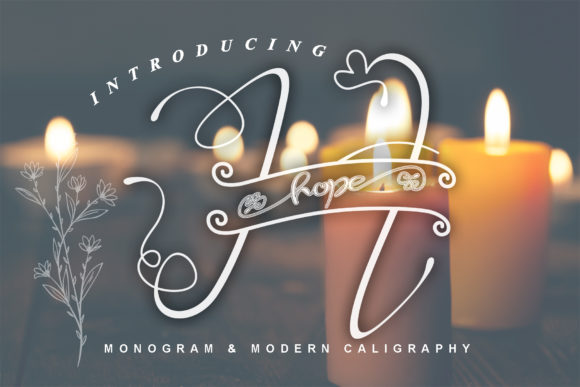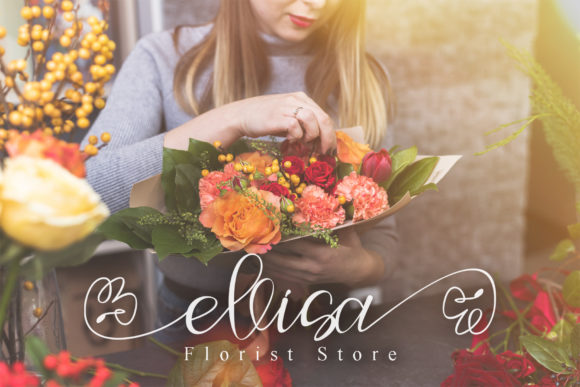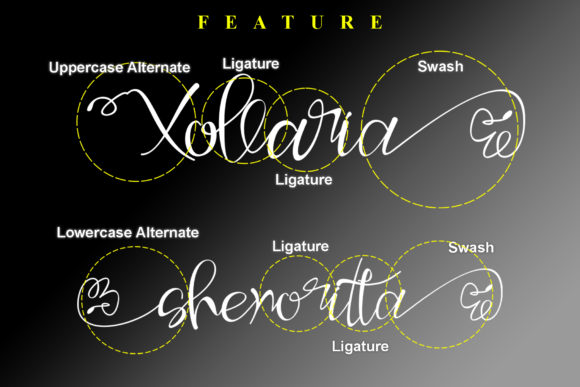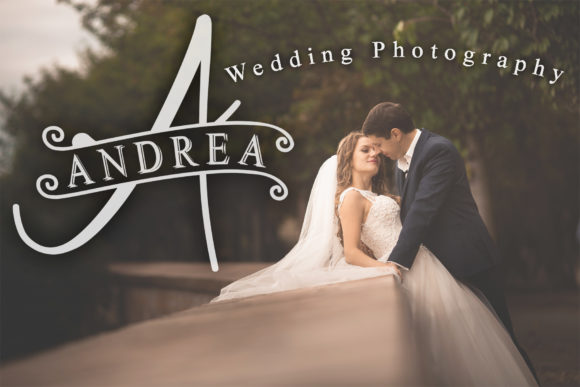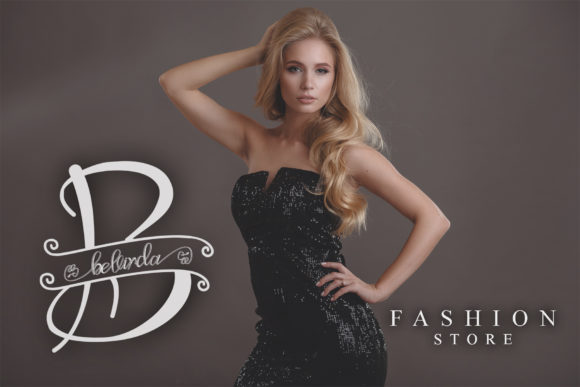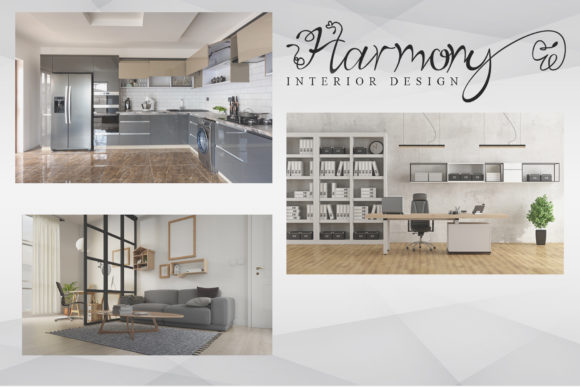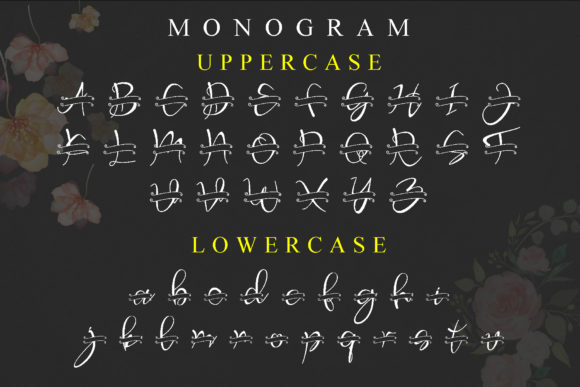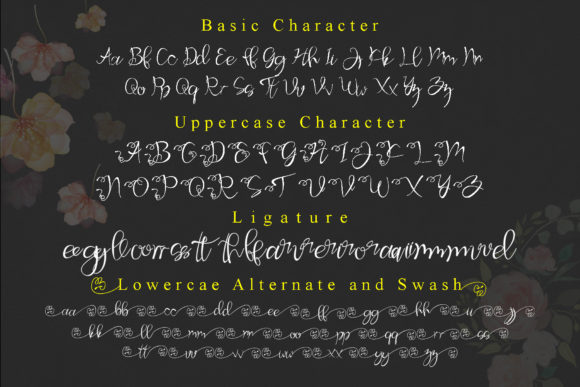
Hope Font
About Hope Font
Hope is a sweet handwritten font. Fall in love with its authentic feel and use it to create gorgeous social media posts, wedding invitations, beautiful stationary art and much more! It also features a wealth of special features including alternate glyphs and ligatures.